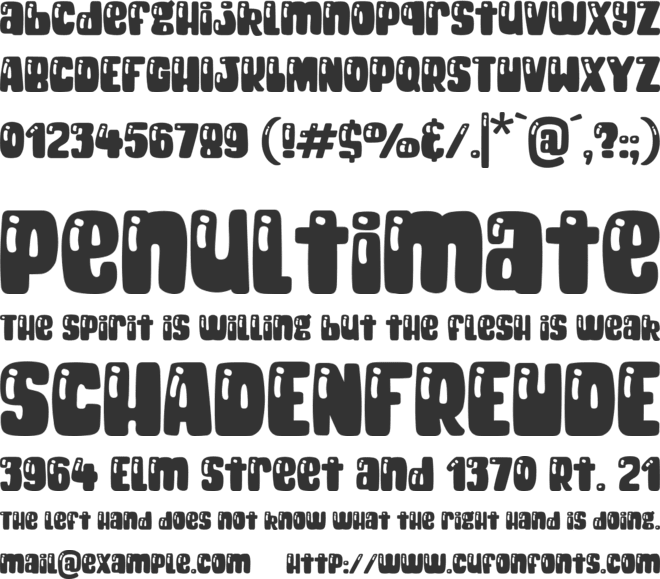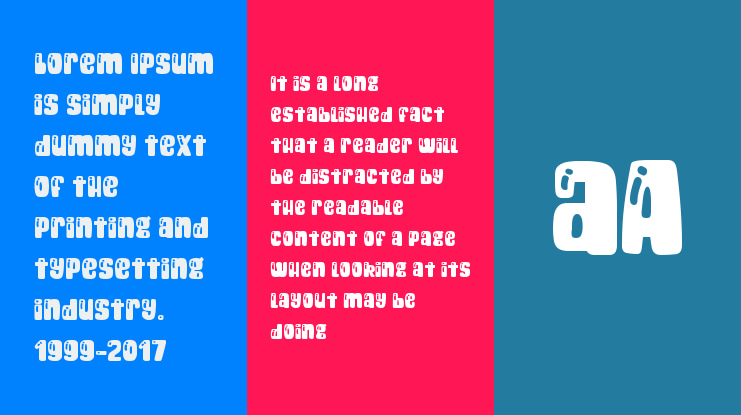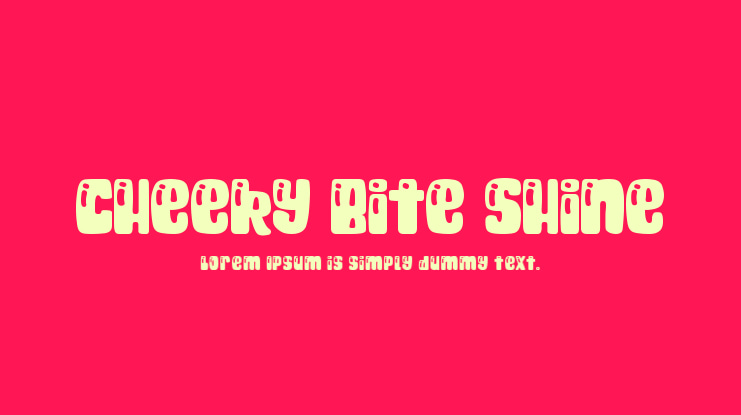
Cheeky Bite Shine Font
Amber Nest
Cheeky Bite Shine is a chunky, retro font perfect for fun attention-grabbing headlines. It is part of a layering system, but it can be used alone.
This font has 355 characters including Basic Latin, numerals, punctuation and multilingual support.